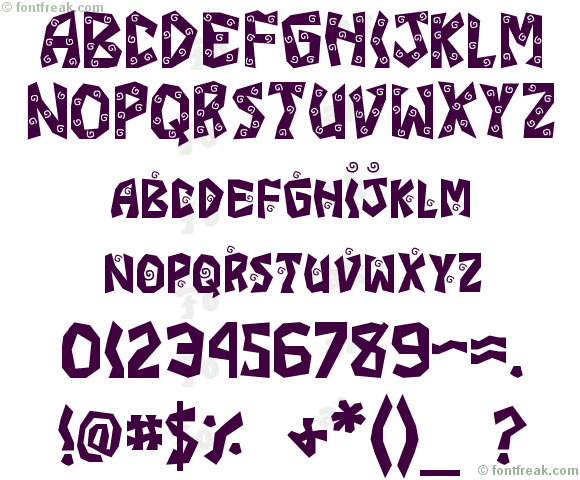
JI Margarita
About JI Margarita
The JI Margarita font, designed by Jeri Ingalls in 2001, is a unique display typeface that captures attention with its playful and whimsical character. This font falls into the decorative category, characterized by its bold, irregular strokes and a lively arrangement of spirals and curls that add an artistic flair to any design. Its distinct style features a medium stroke weight with minimal contrast, making it suitable for headlines and prominent text elements. The spacing is thoughtfully designed to ensure readability while maintaining its artistic essence.
This font is particularly well-suited for a variety of creative applications. It can enhance wedding invitations, injecting a sense of fun and celebration into the design. Additionally, JI Margarita works wonderfully for restaurant menus, where its unique style can draw attention to special dishes or themed nights. Graphic designers may find it ideal for creating vibrant movie posters, where a bold statement is necessary to capture the audience's interest. Furthermore, content creators looking to add a touch of whimsy to their blogs or social media posts will appreciate the font's distinctive personality.
Target audiences for the JI Margarita font include graphic designers, small business owners, and content creators who seek to make their work stand out with a unique typeface. The playful nature of this font makes it a perfect choice for those who want to convey a sense of creativity and joy in their projects.
What sets the JI Margarita font apart is its ability to combine fun and functionality. Its decorative elements and engaging design create an inviting atmosphere, making it a standout choice for various creative endeavors. For those interested, a JI Margarita font free download is available, allowing users to incorporate this whimsical typeface into their projects effortlessly.
Author Jeri Ingalls